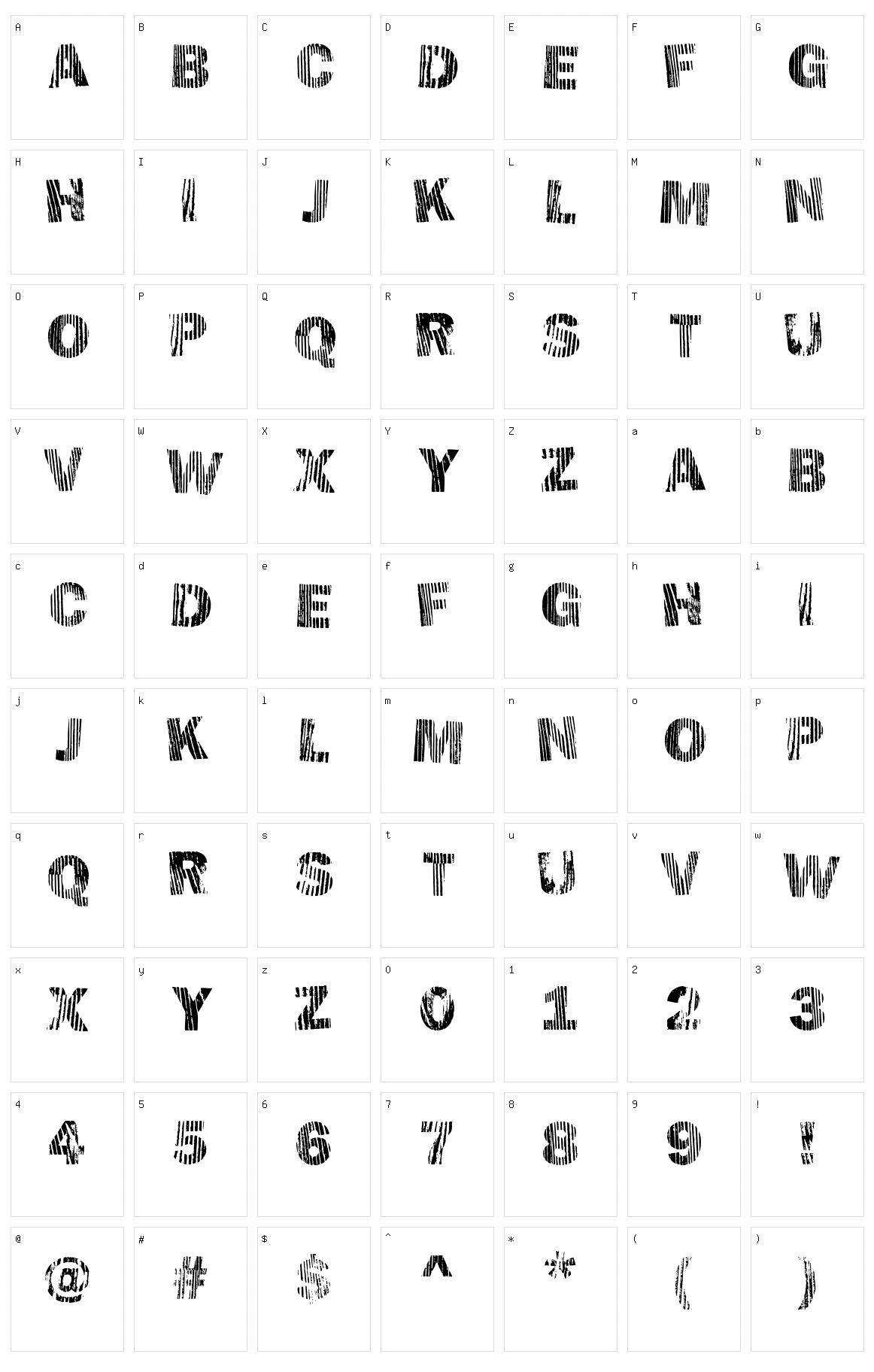
The free font Hellawood is carefully designed by Xerographer Fonts, showcasing a thoughtful balance of creativity and usability and falls under the Eroded font style. When you download the ZIP file, it contains only 175.37 KB of font files, making it lightweight and quick to download. Please review the license details below to understand permitted usage and distribution rights. If license information is not available, we recommend using this font for personal projects only or contacting the author directly for commercial usage permissions.